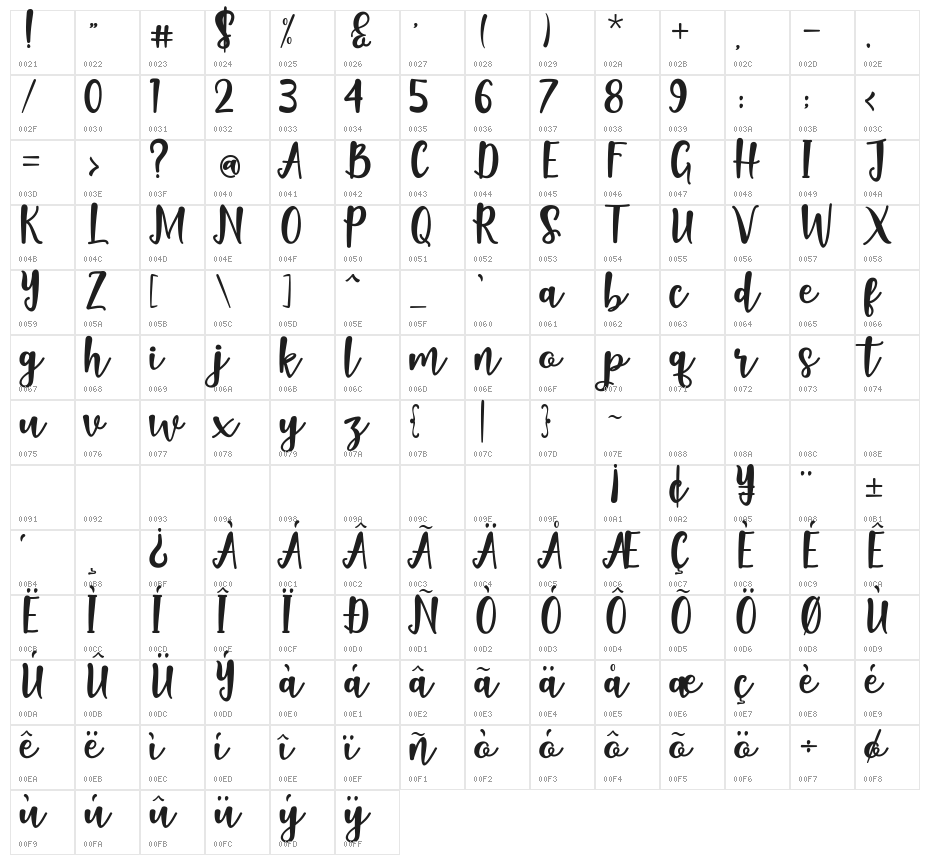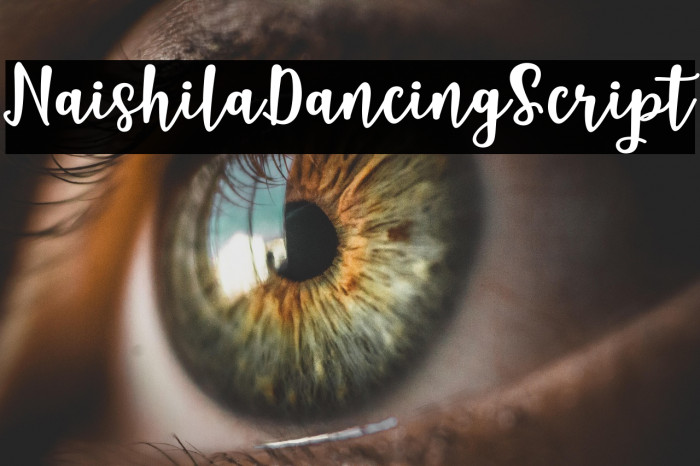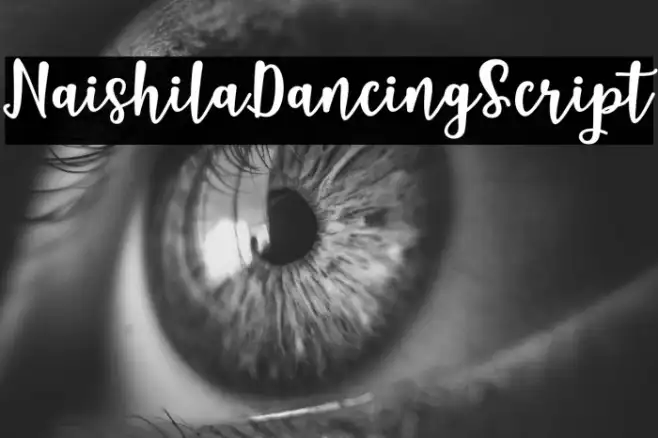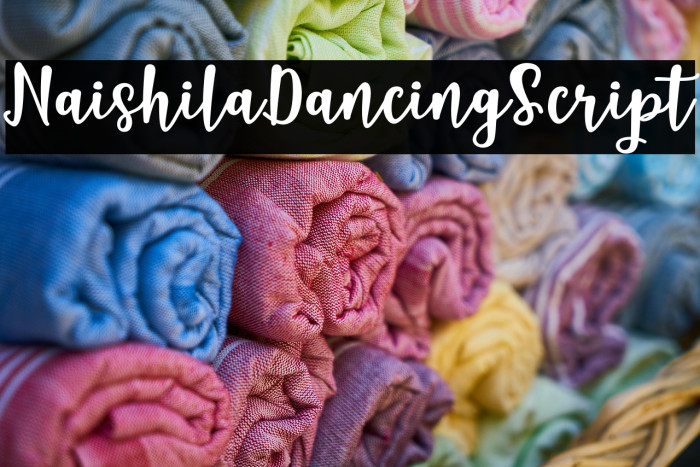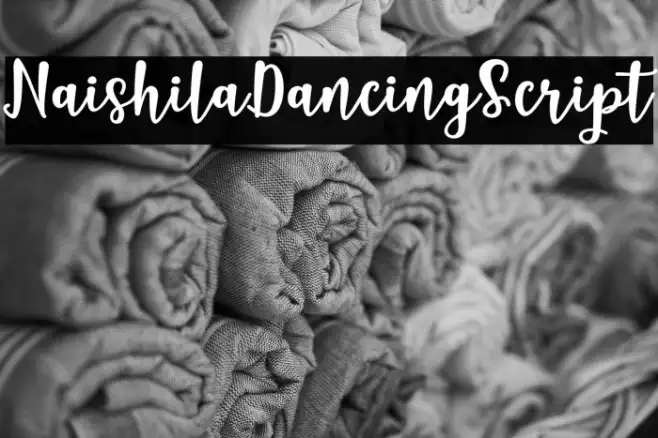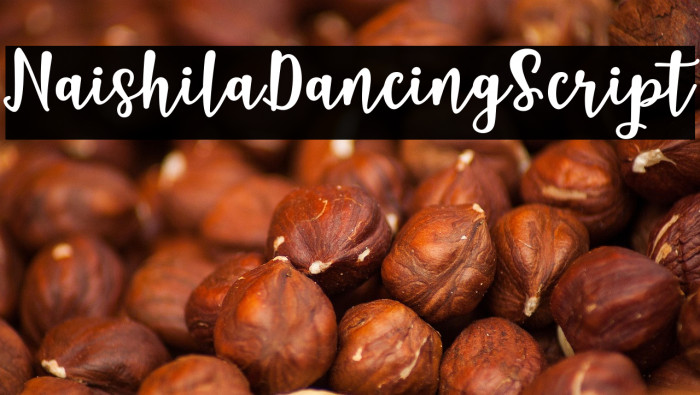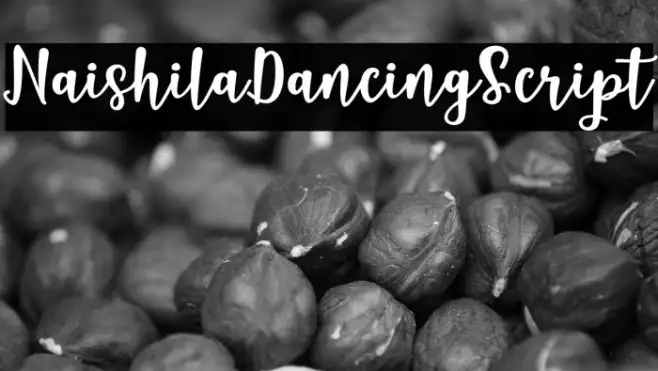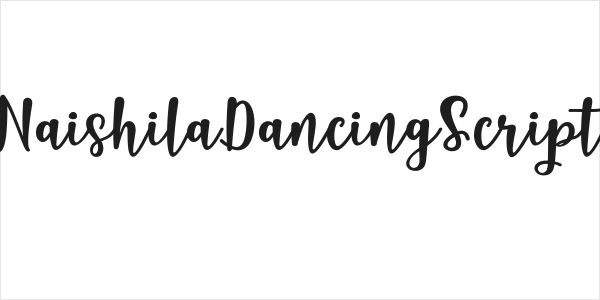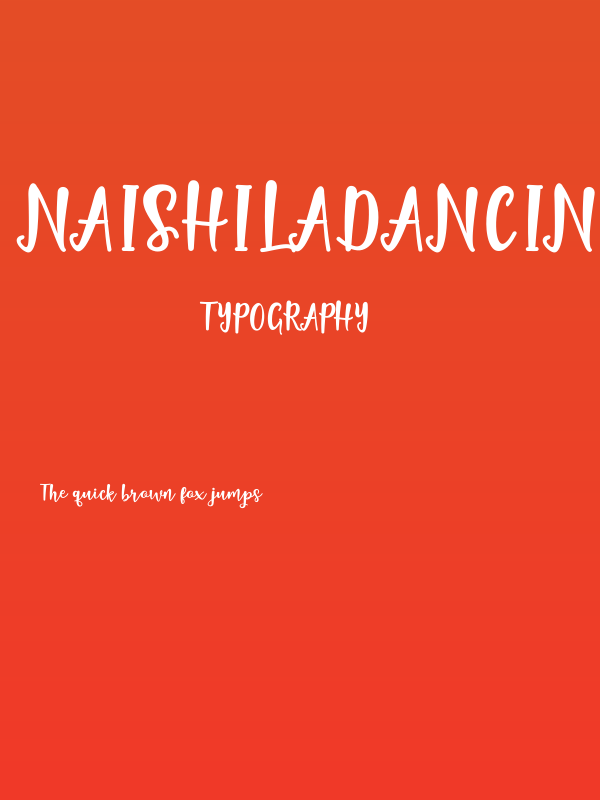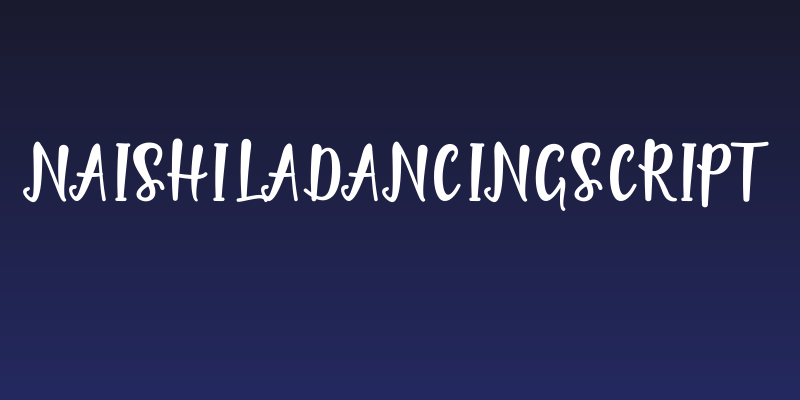
NaishilaDancingScript Font
NaishilaDancingScript Description
This font exudes a lively and playful character, with its fluid and connected script style that mimics natural handwriting. The uppercase letters are bold and slightly slanted, giving a sense of movement and dynamism. The lowercase letters are elegantly curved, with some letters featuring loops and flourishes that add to its charm. The numerals are consistent with the overall style, maintaining a balance between readability and decorative flair. Special characters are thoughtfully designed, complementing the script's whimsical nature. This font is perfect for projects that require a personal touch, such as invitations, greeting cards, and creative branding.
| Proposed Projects | Ideal for invitations, greeting cards, creative branding, and personal projects. |